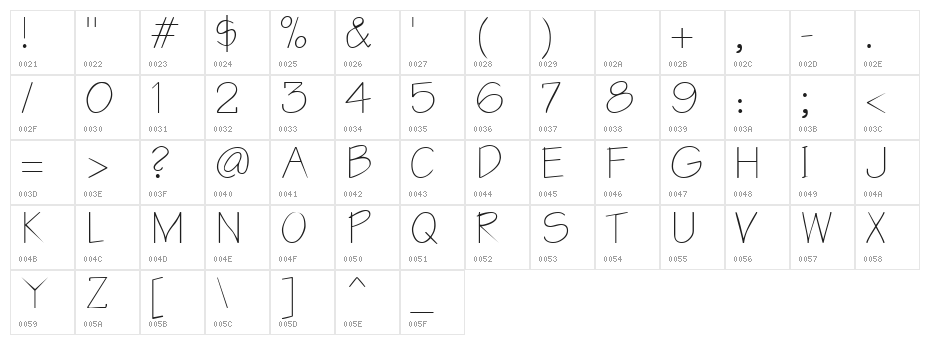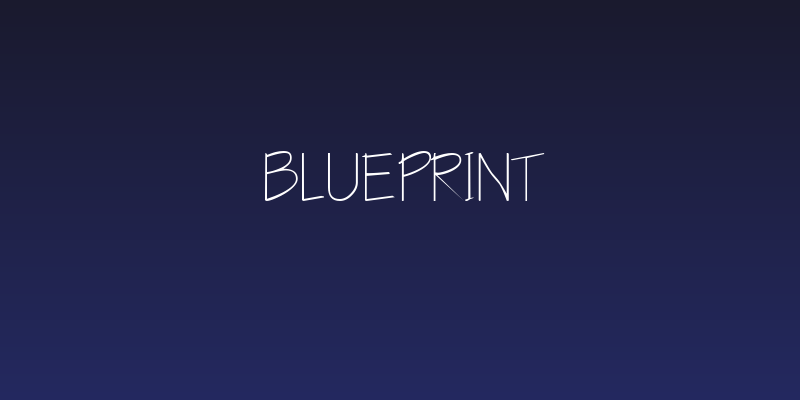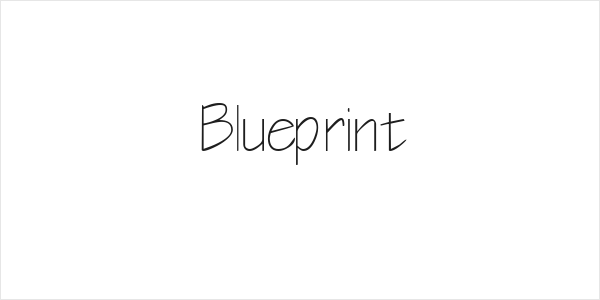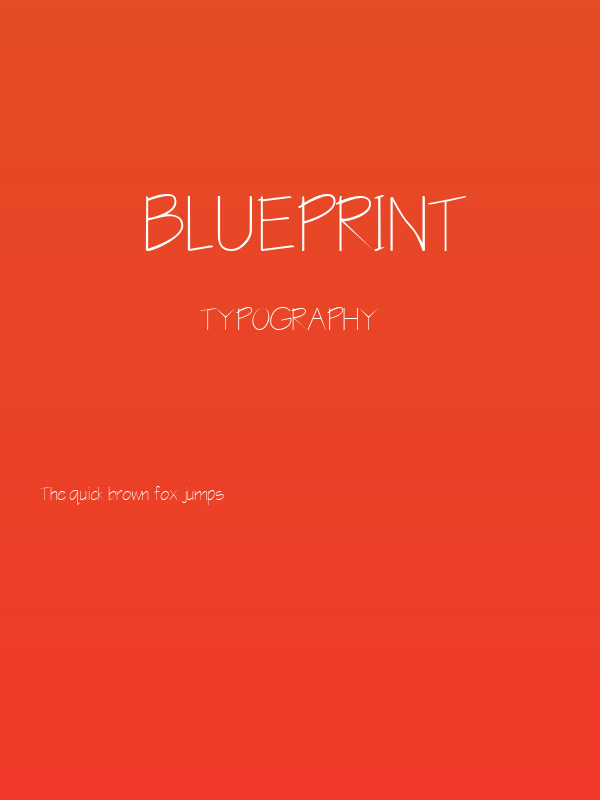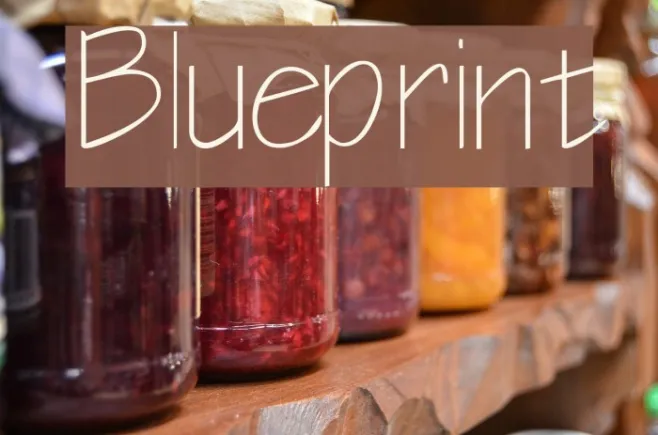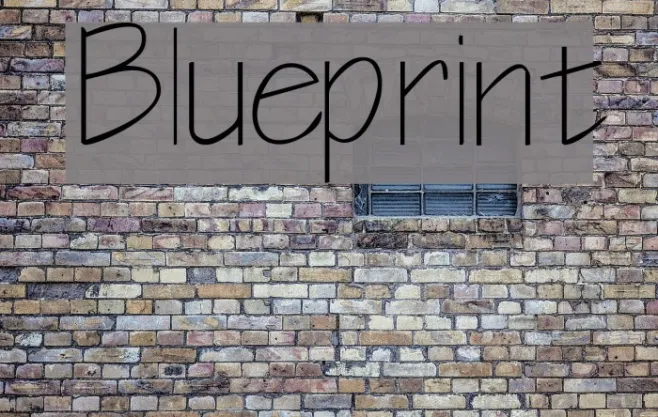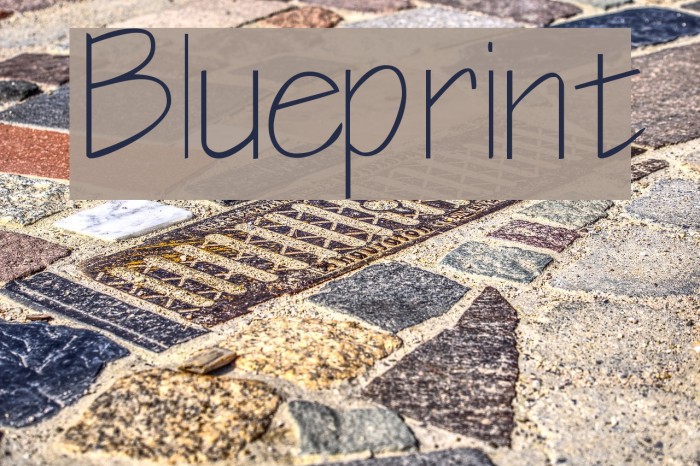
Blueprint Font
Blueprint Description
This font features a clean and modern aesthetic with a slightly playful touch. The characters are tall and narrow, giving a sense of elegance and sophistication. The strokes are consistent in width, providing a uniform appearance across all characters. The uppercase letters are distinct with sharp angles, while the lowercase letters maintain a smooth, rounded form. The numerals are clear and easy to read, complementing the overall style. Special characters are well-integrated, maintaining the font's cohesive look. This font is versatile, suitable for various design applications.
| Width | Condensed |
| Use Case | Headlines, Body text, Logos |
| Proposed Projects | Ideal for branding, editorial design, and digital interfaces where a modern and elegant look is desired. |